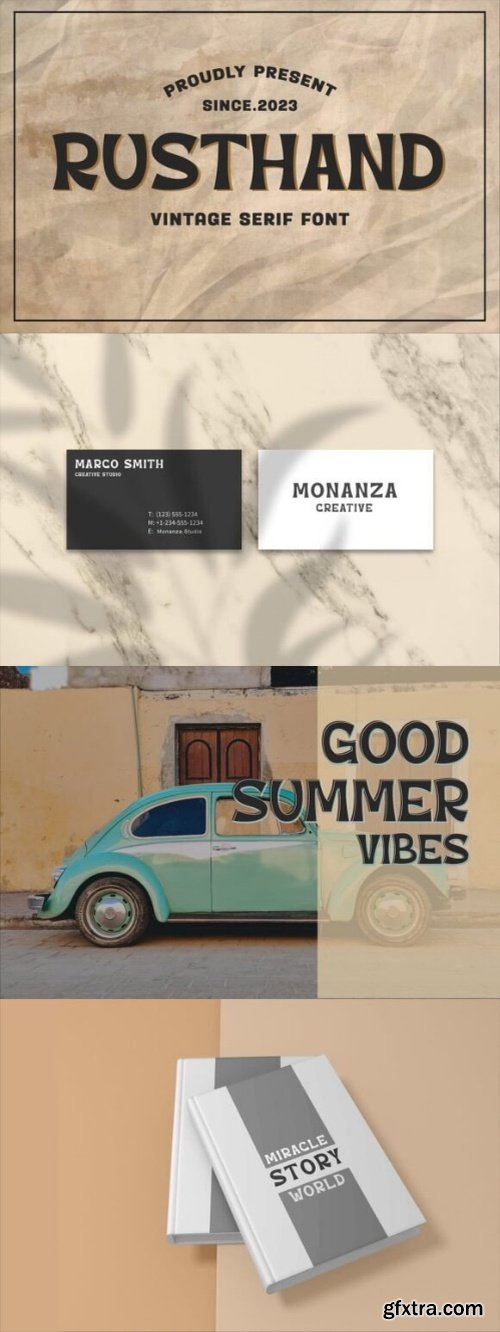
Rusthand Font
- Introducing Rusthand, an enchantingly vintage serif font beautifully designed to encapsulate a modern-retro aesthetic. This font’s naturalistic charm flawlessly weaves classic character with contemporary allure, making it an ideal choice to fulfill a variety of design needs. Warmly retaining the essence of yesteryears while incorporating a touch of today’s dynamism, Rusthand breathes life into your artwork with its delightful fusion of styles. With Rusthand, every stroke tells a story of timelessness and sophistication— a timeless gem in your design repertoire.